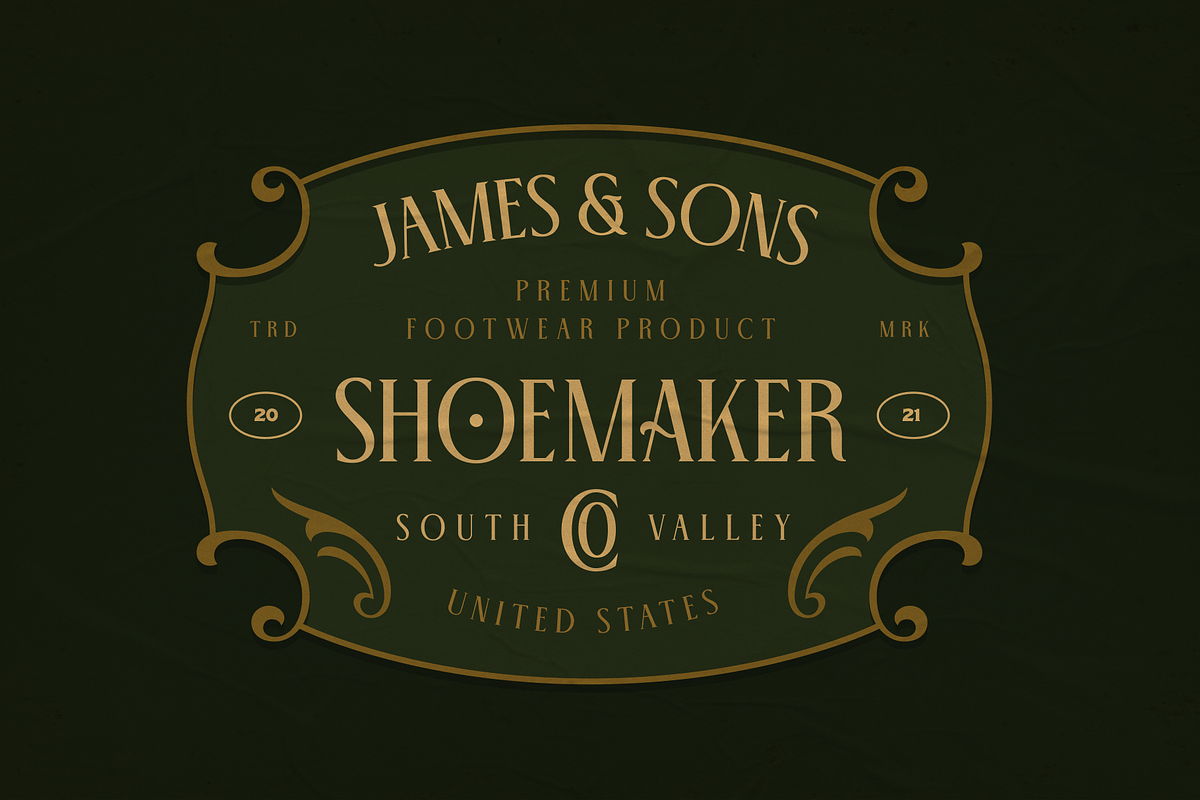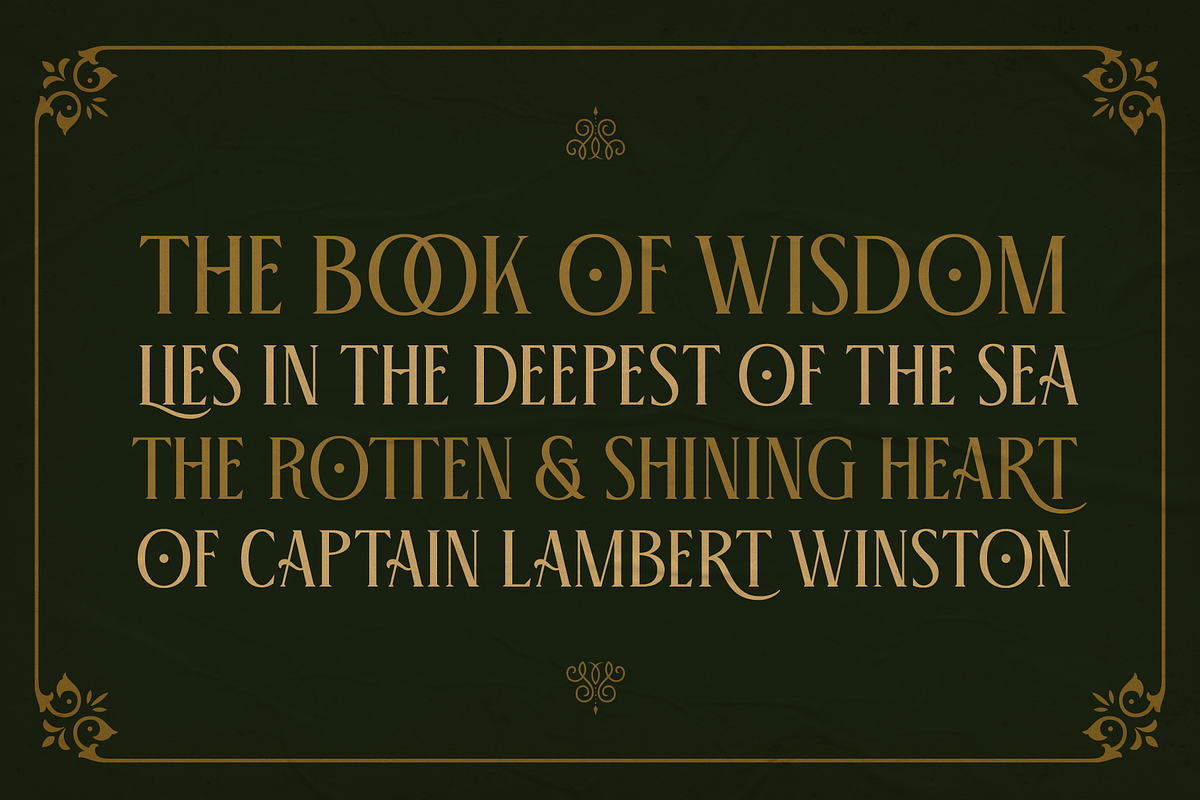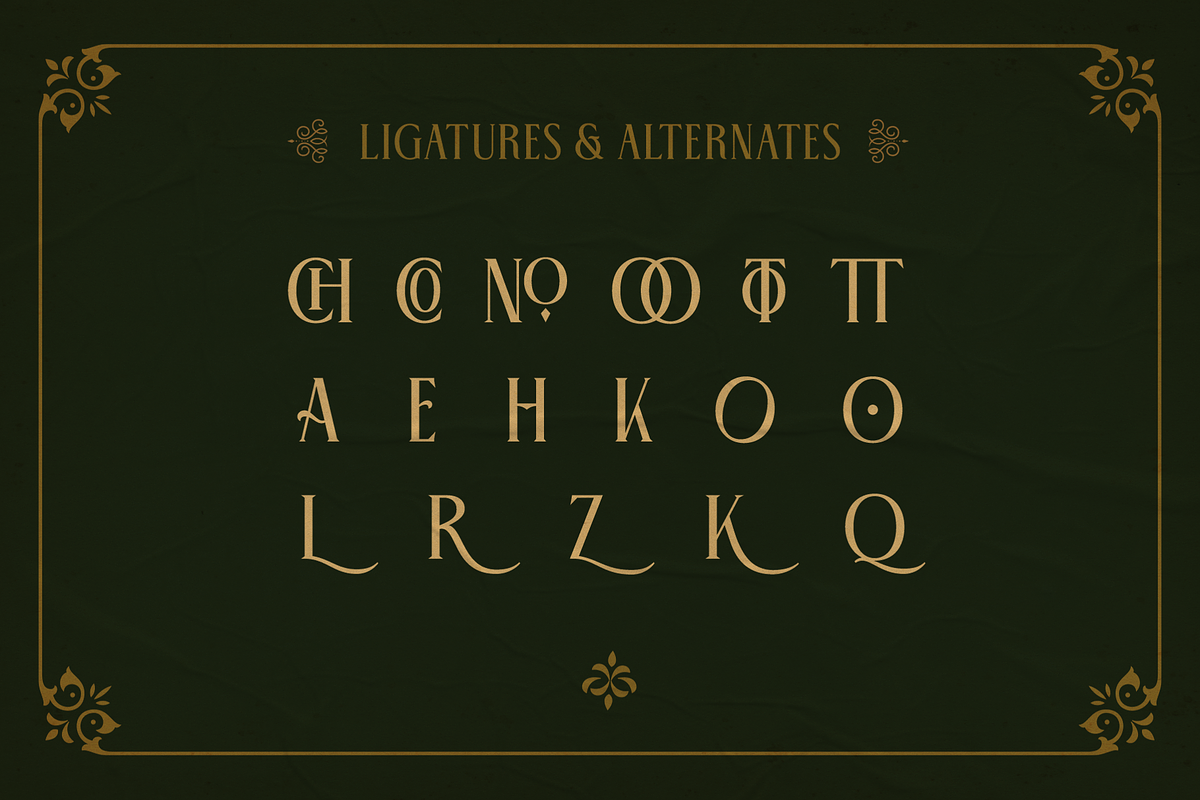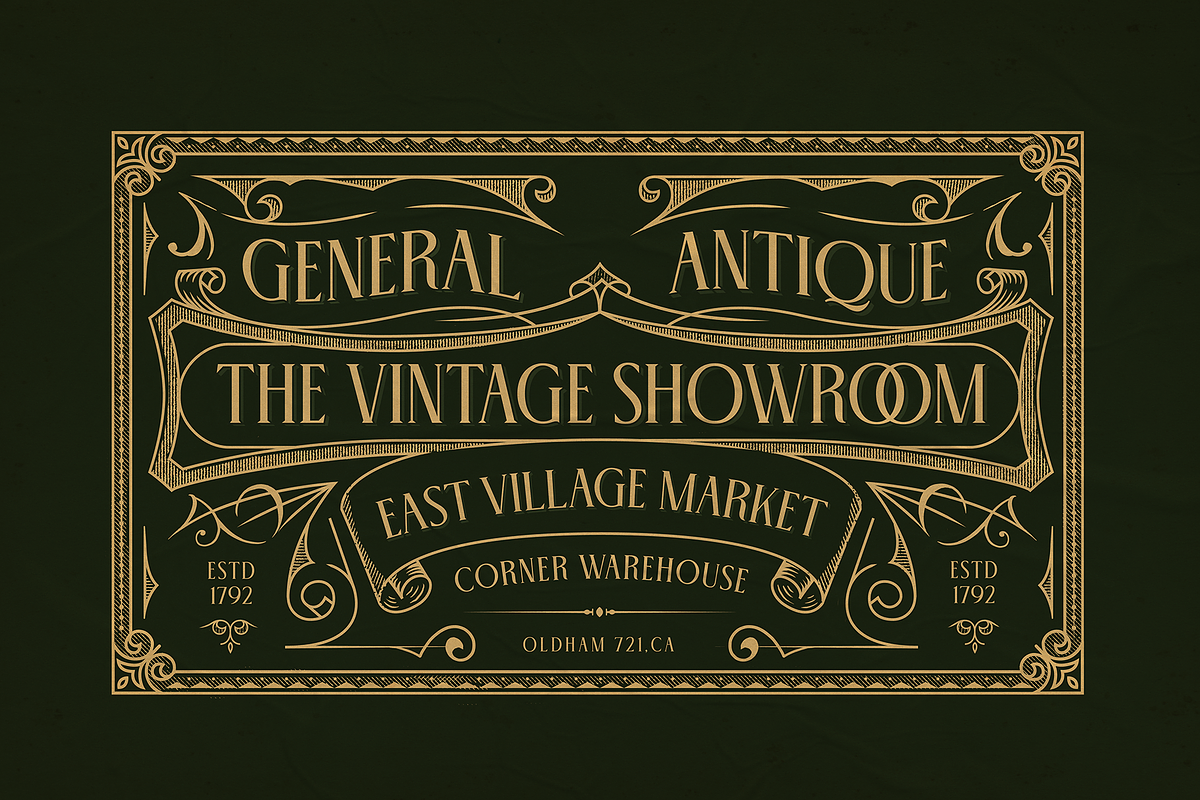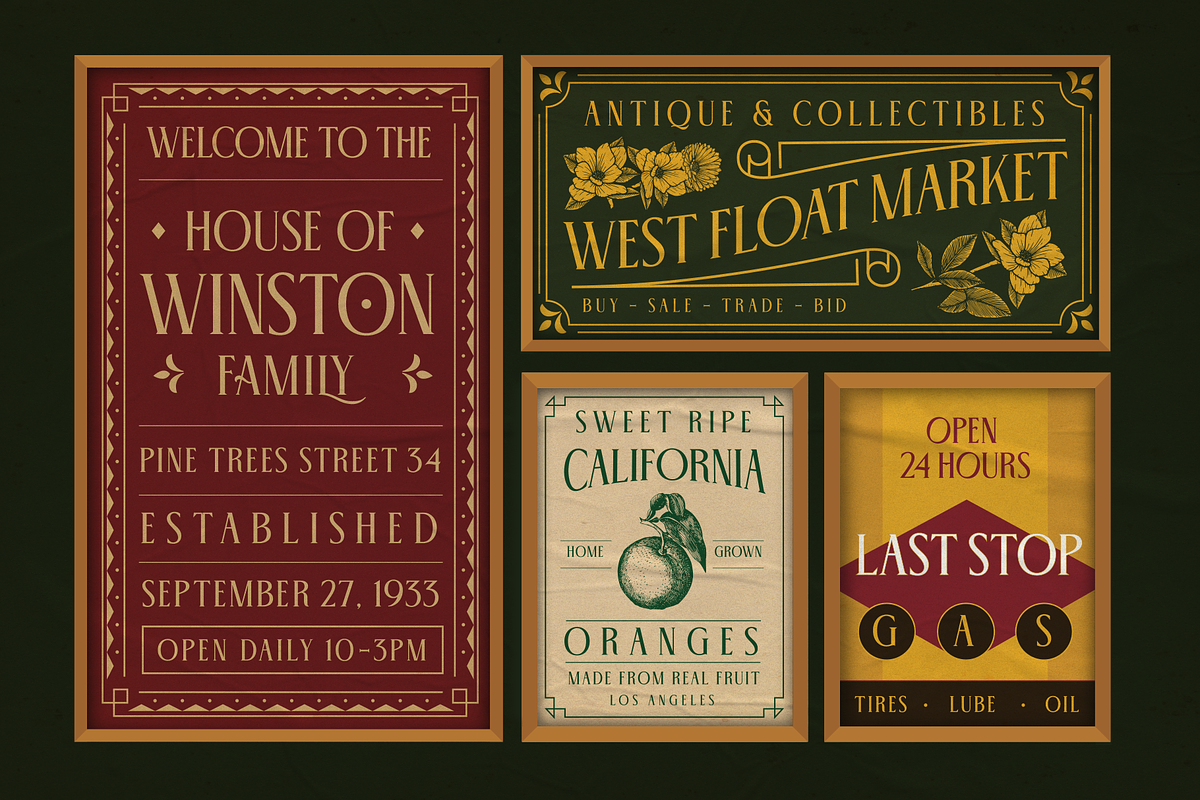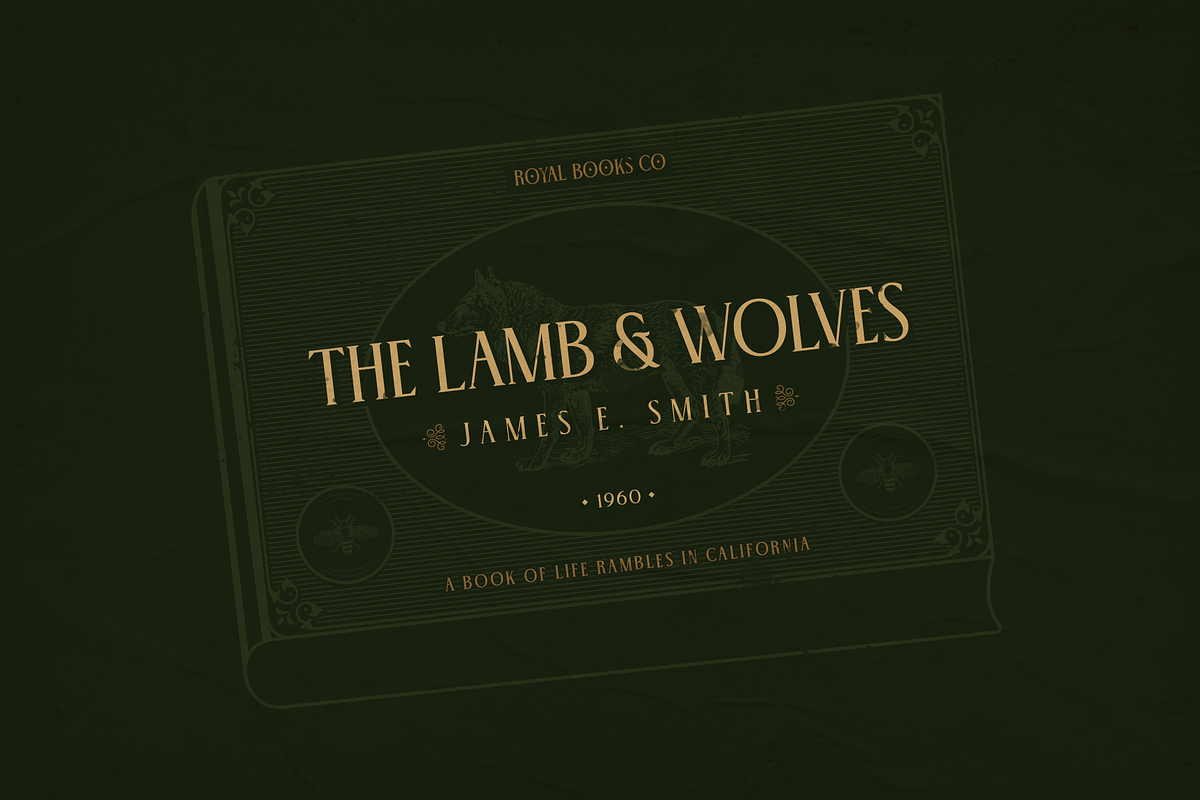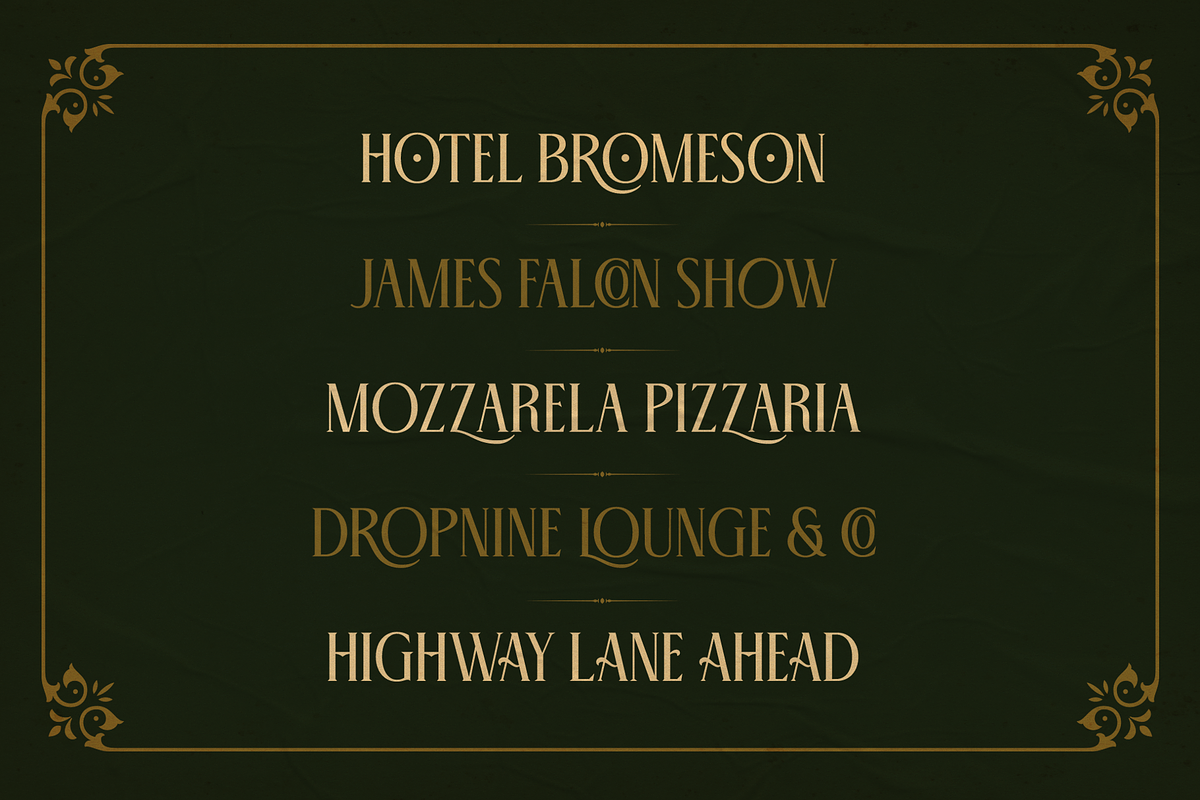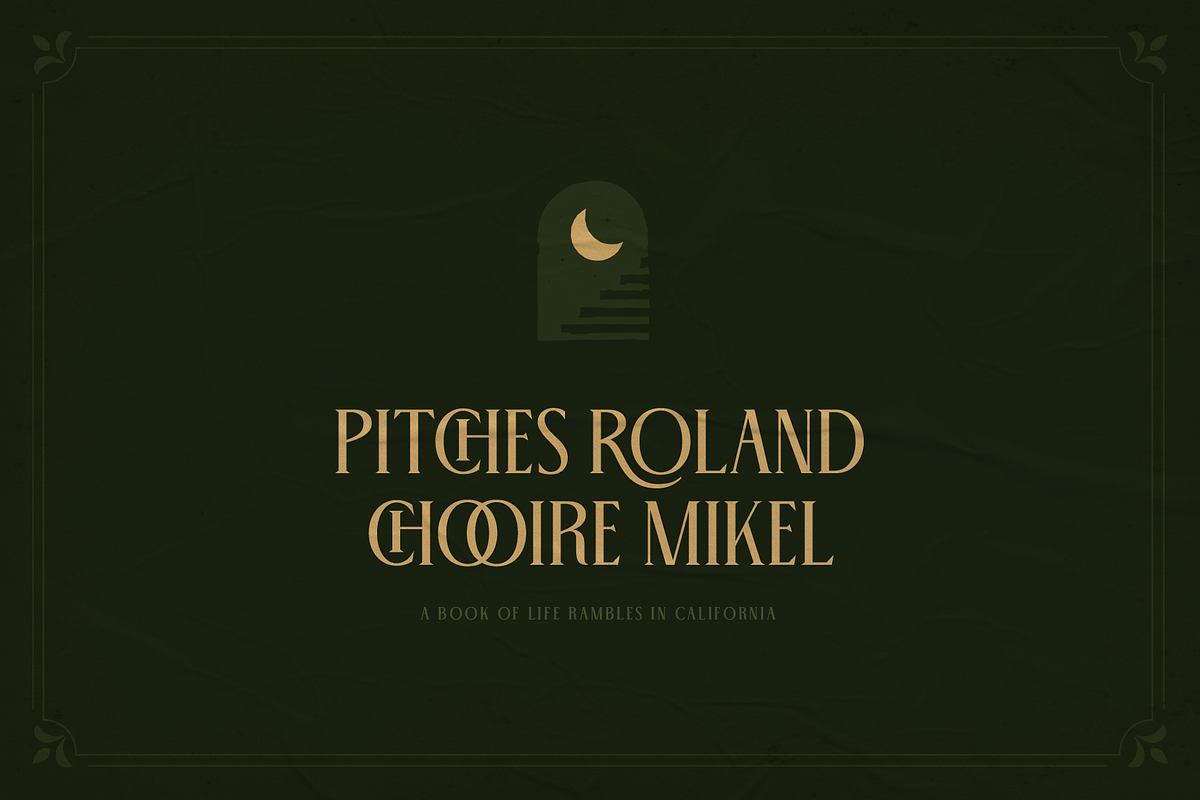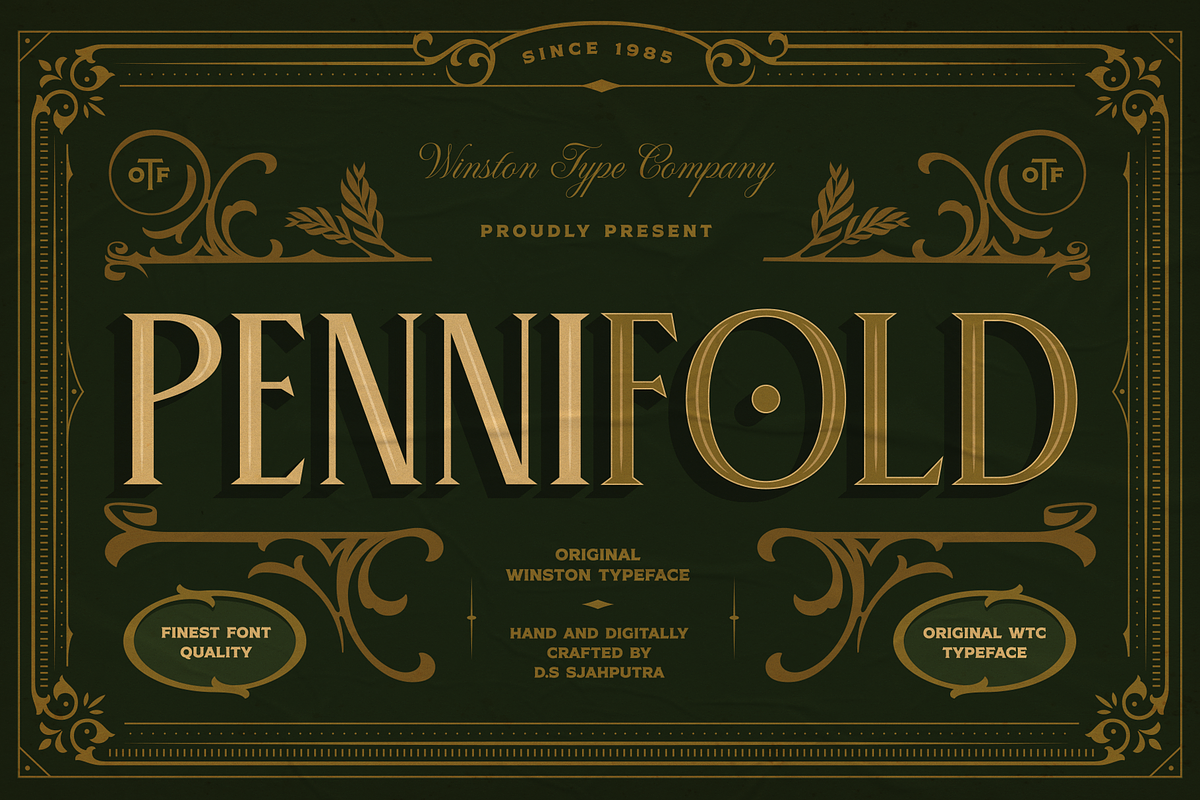
WT Pennifold
WT Pennifold is the vintage elegant serif typeface that is inspired by the old books and packaging design from the art deco and victorian era. This font consists of several OpenType features such as stylistic alternates, ligatures, and special characters that come in both OTF and TTF format to make it easy to create beautiful designs for packaging, labels, logos, and more.